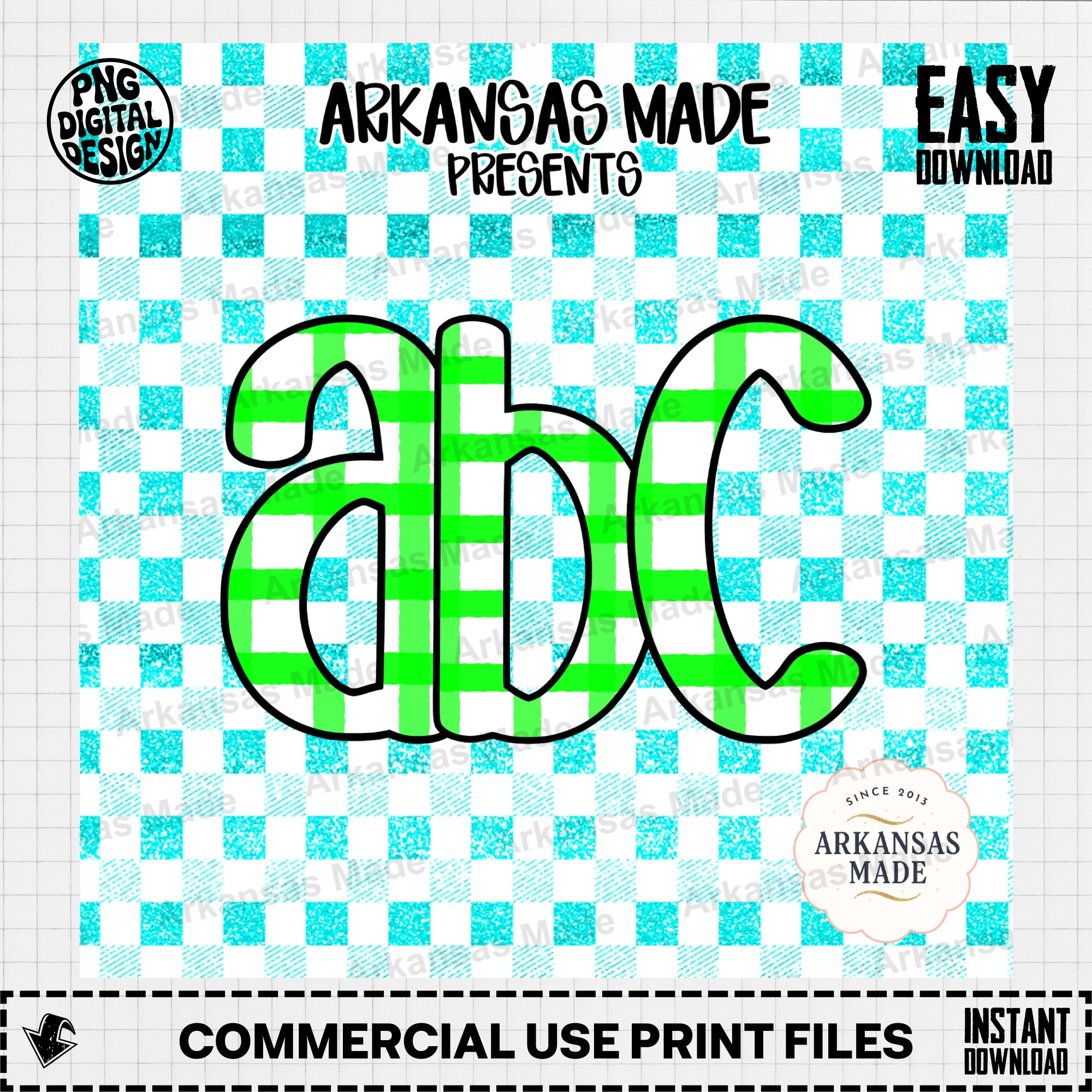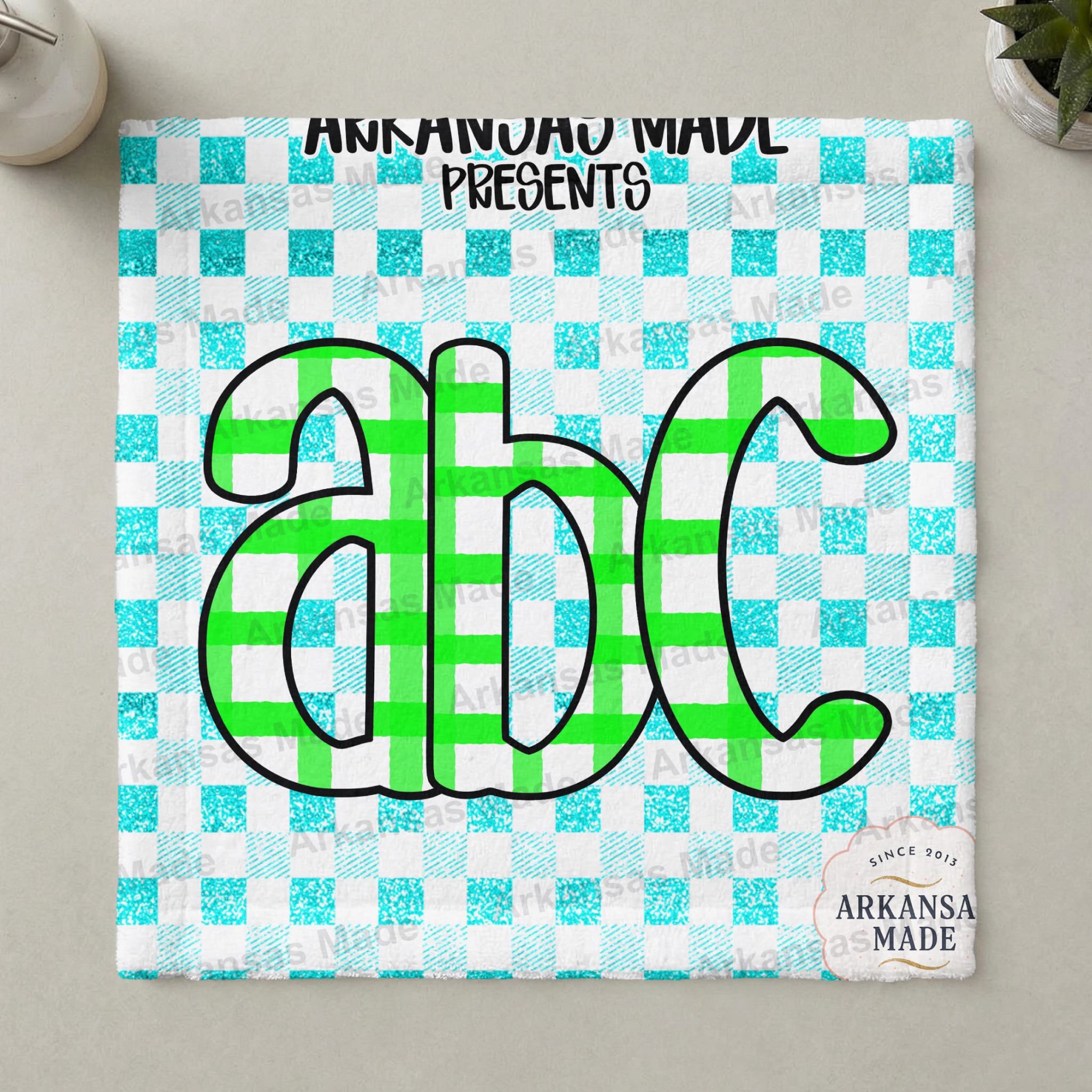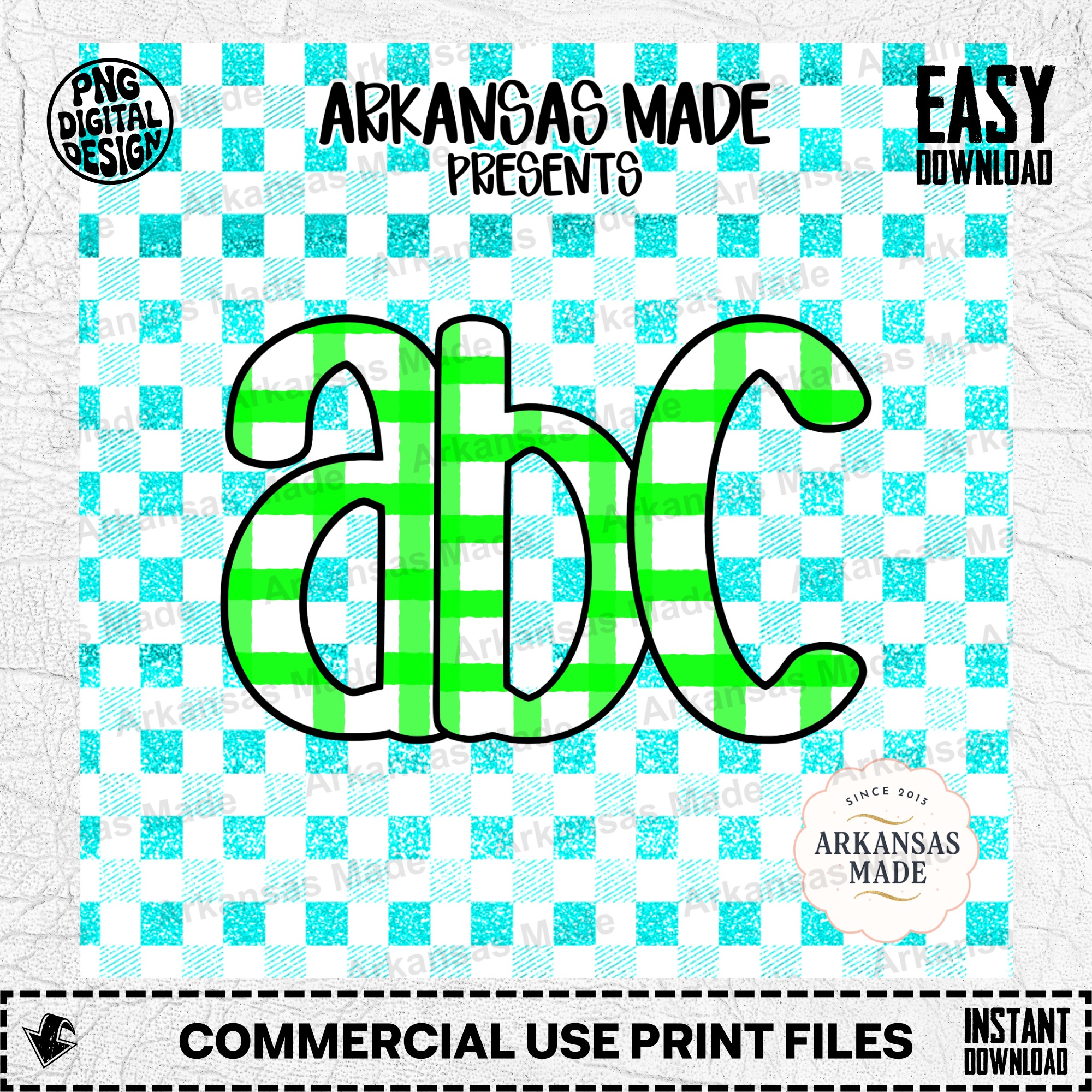
Green Gingham Alpha Set Digital Download | Glitter ABC Letters Clipart PNG | Preppy Font Graphic for Crafts & Nursery Decor
Elevate your projects with this vibrant Green Gingham Alpha Set Digital Download, featuring faux glitter ABC letters for endless creative possibilities. This playful and preppy digital letter set is perfect for crafters, teachers, or anyone creating personalized gifts and decor. Ideal for custom t-shirts, nursery art, school projects, baby shower decor, or adding a charming country chic touch to any DIY project. Infuse your designs with a cheerful, rustic sparkle!